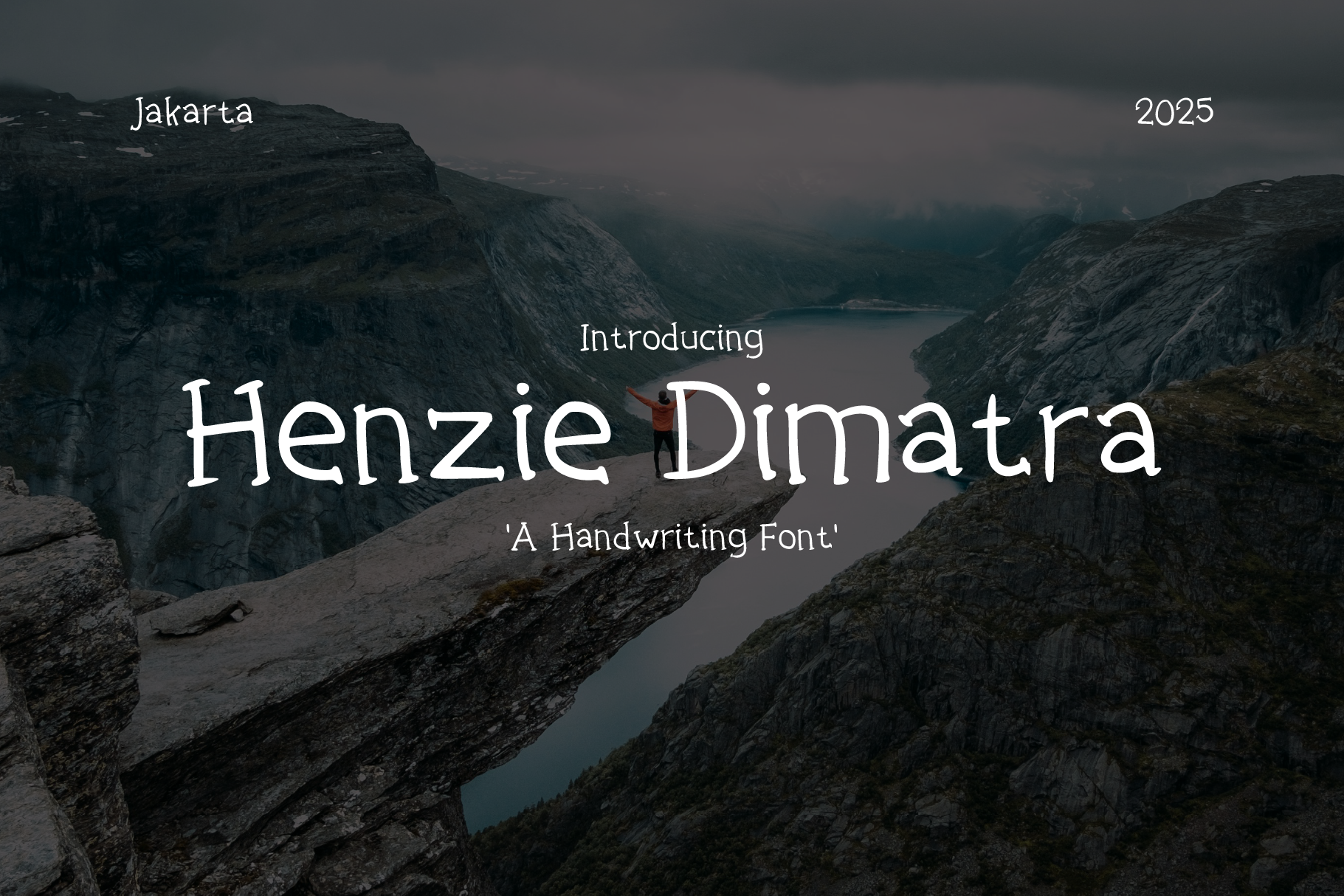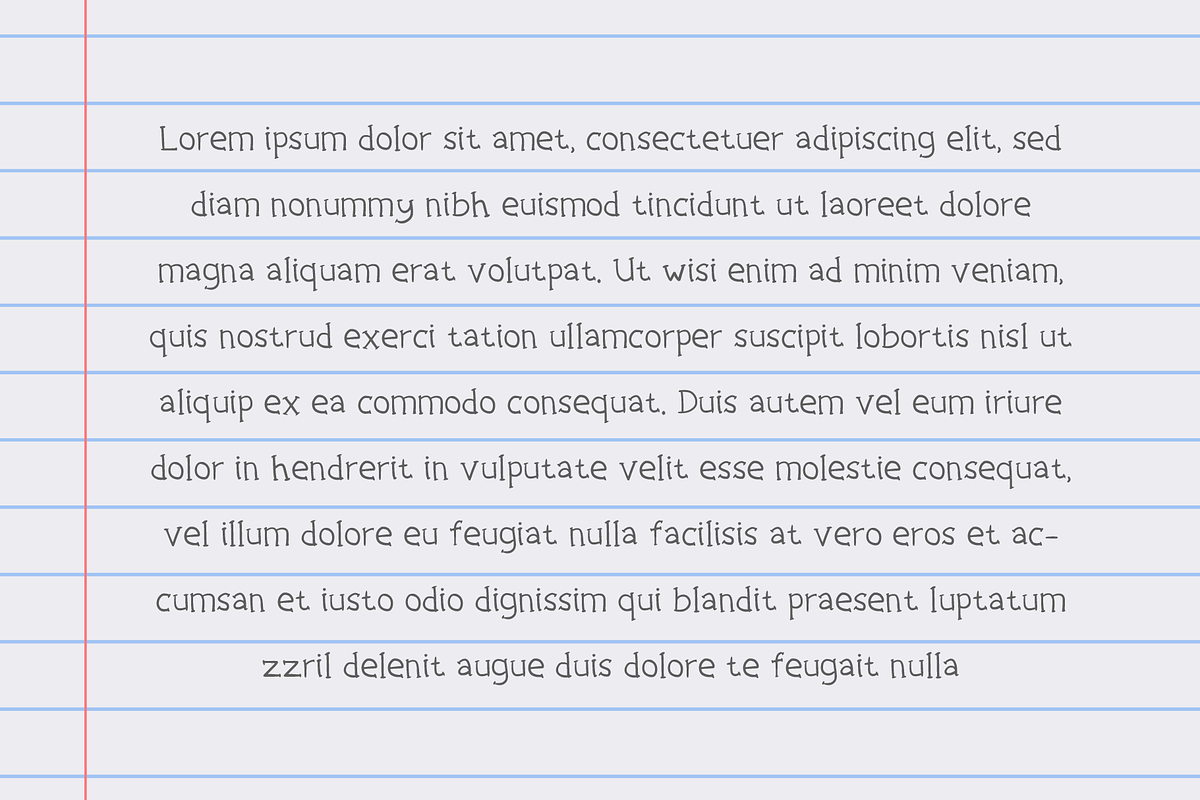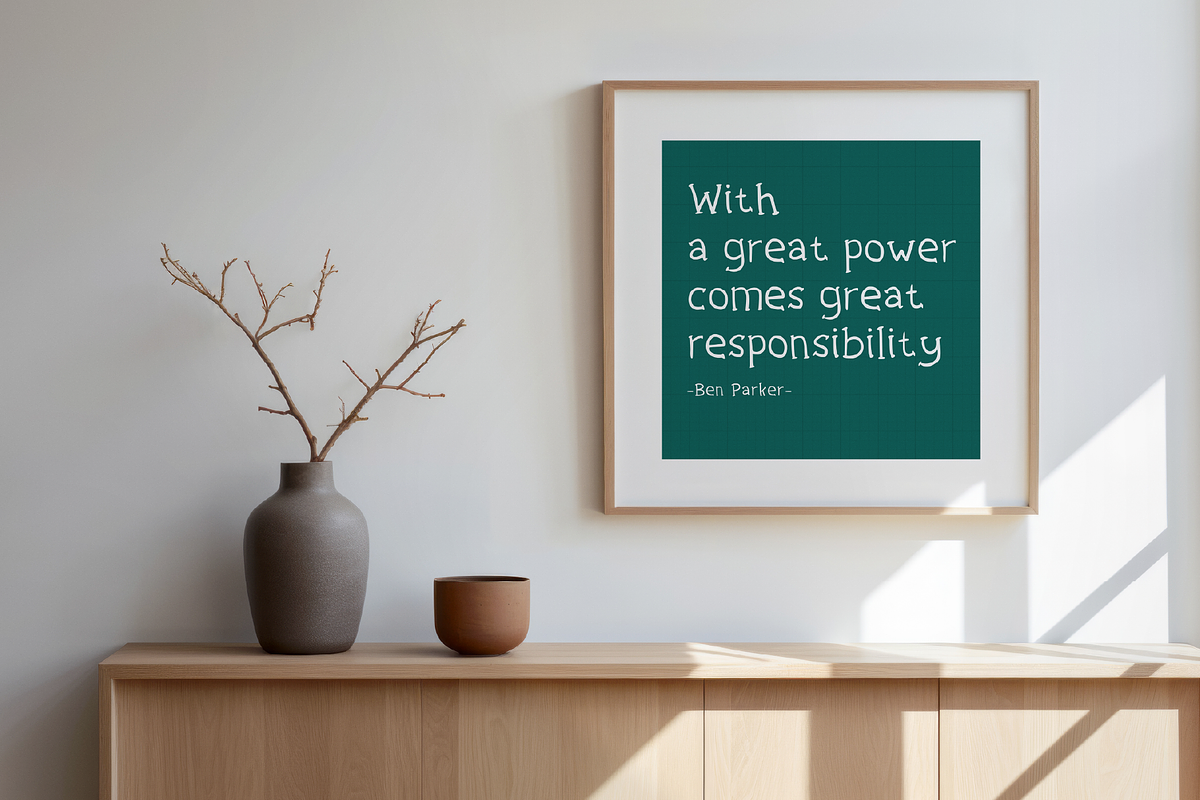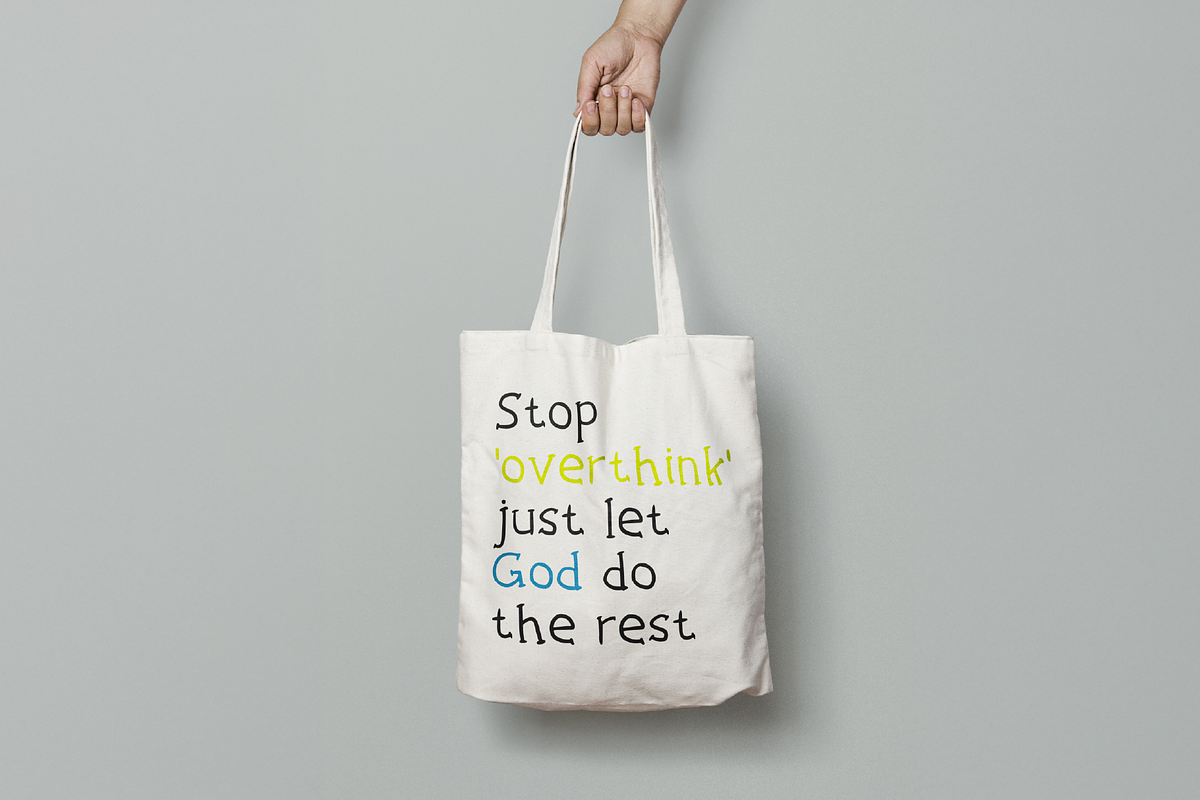
Henzie Dimatra - Handwritten Font
Meet Henzie Dimatra, a naturally flowing handwritten font that captures the warmth and personality of genuine handwriting. Crafted with care, this font offers a versatile typeface suitable for a wide range of creative projects.
Logos and branding Invitations and greeting cards Social media posts and graphics Website headers and banners Product packaging And much more! Add a touch of handcrafted elegance to your designs with [Font Name].